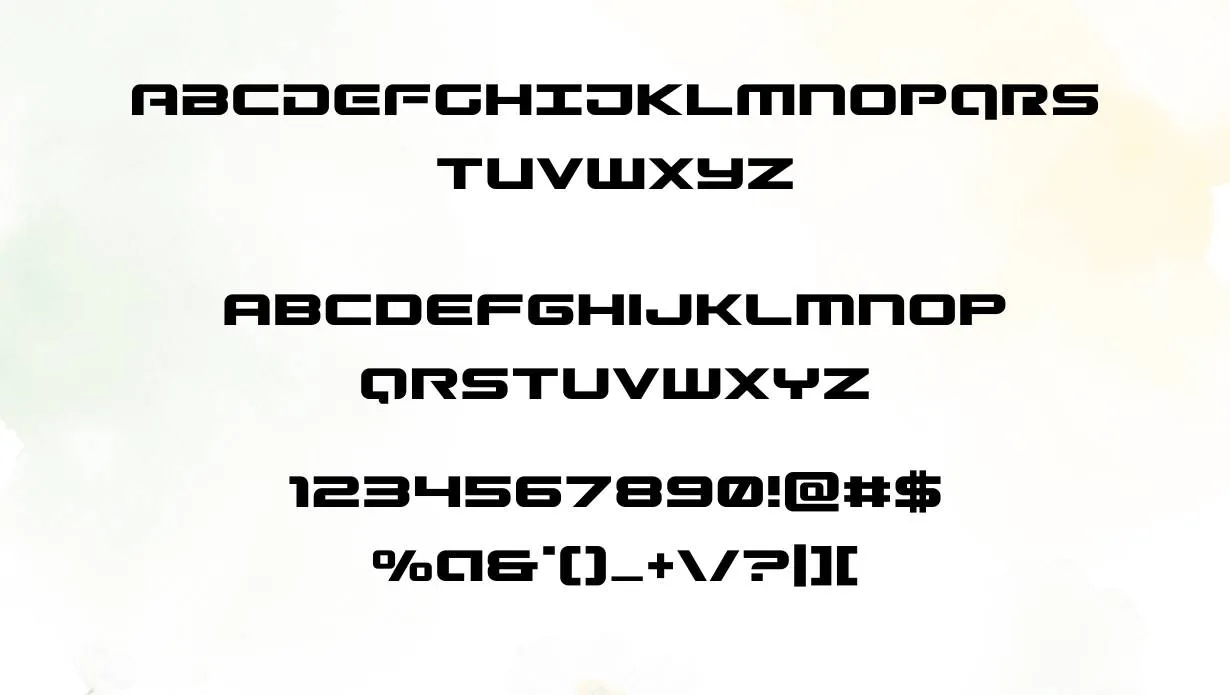
The Gunship font is bold and edgy, perfect for creating impactful titles or headers in MS Word documents. It adds a rebellious and strong touch to the text, making it ideal for attention-grabbing headers.
| Name | Gunship Font |
| Designer | Iconian Fonts |
| Style | Techno |
In Adobe Photoshop, Gunship can be used for creating logos or designs where a bold and assertive appearance is needed. Its powerful and striking look gives a sense of strength to any design.